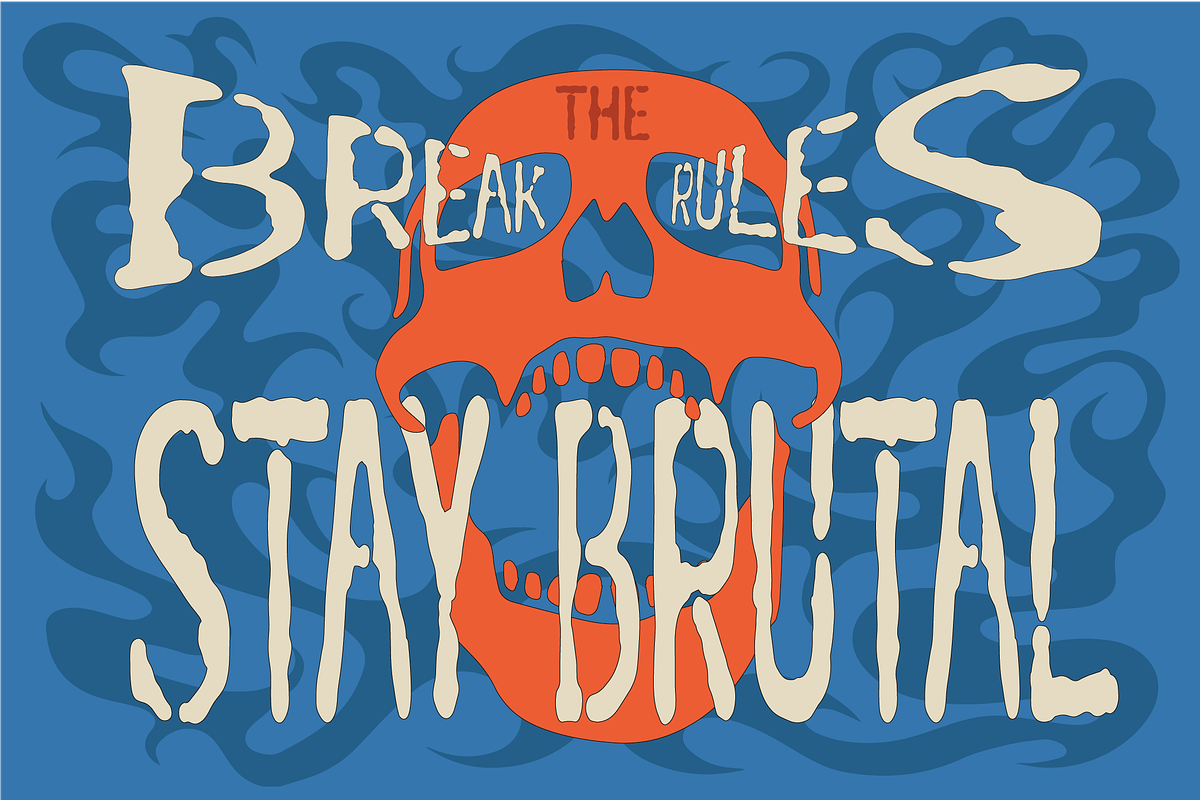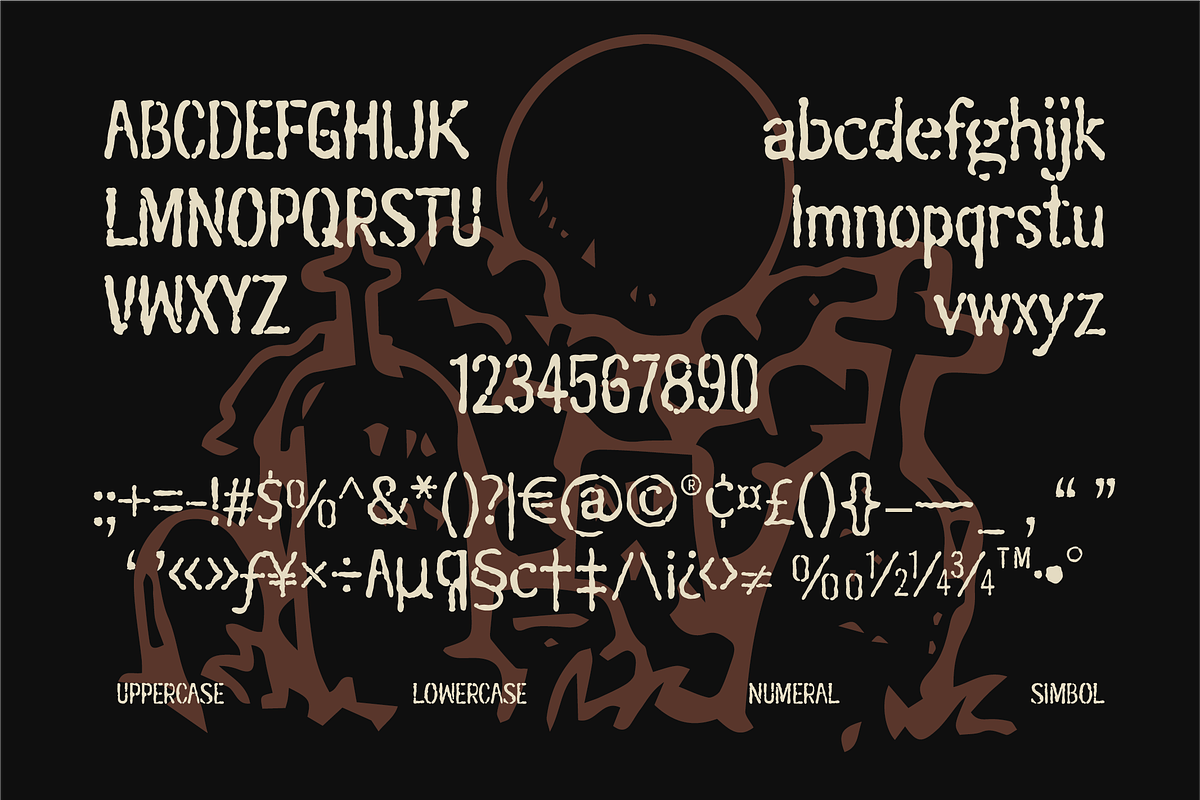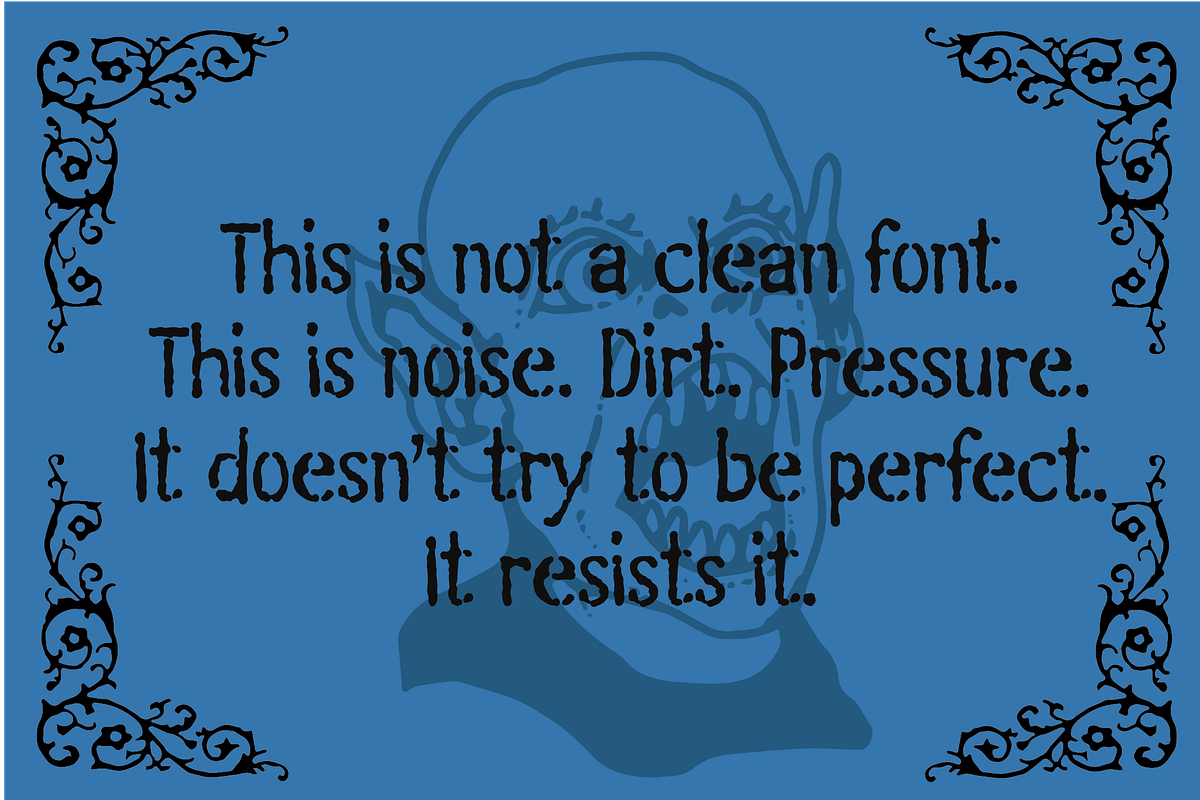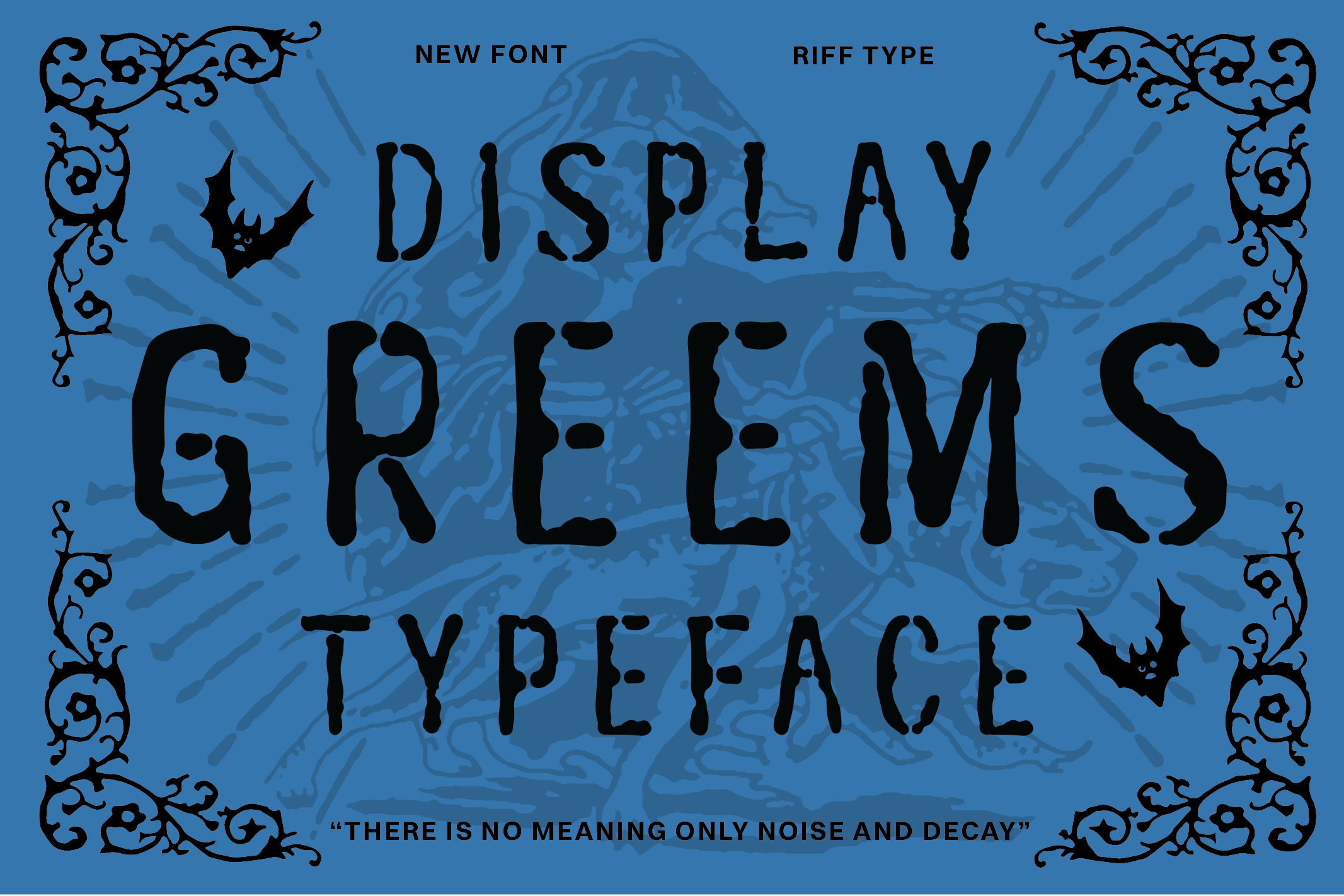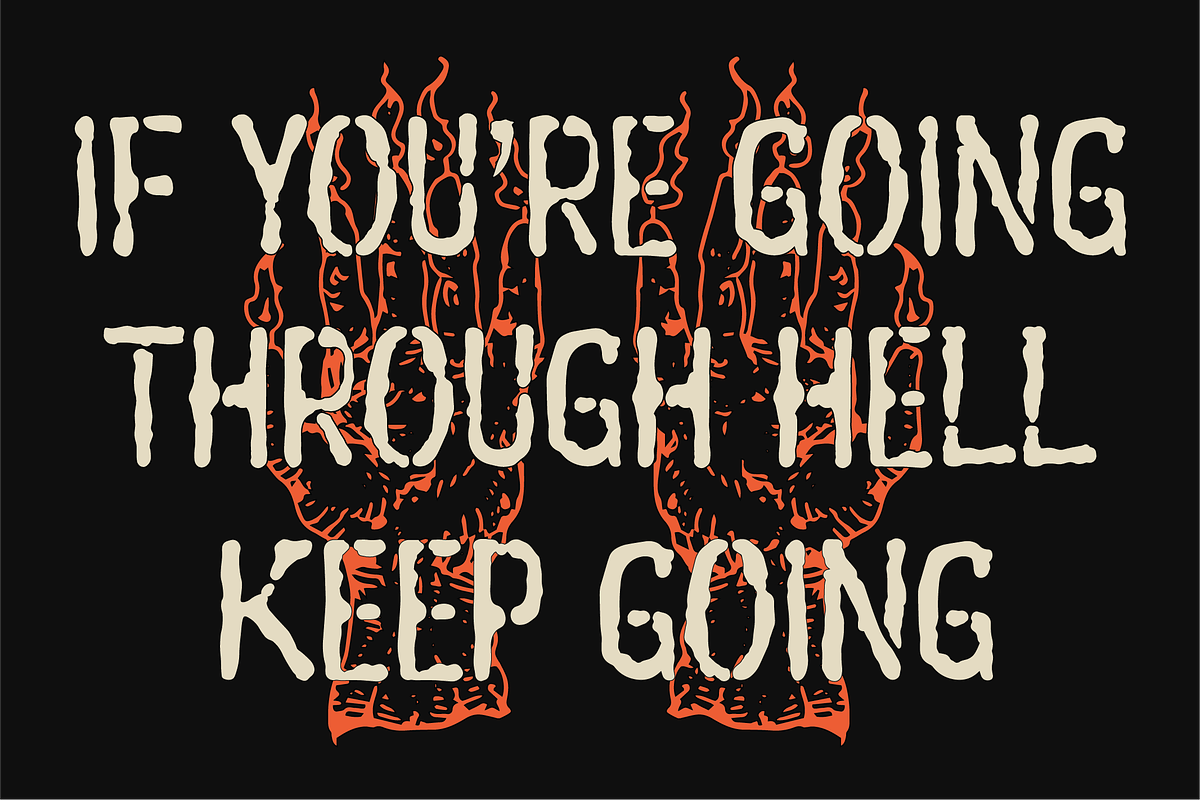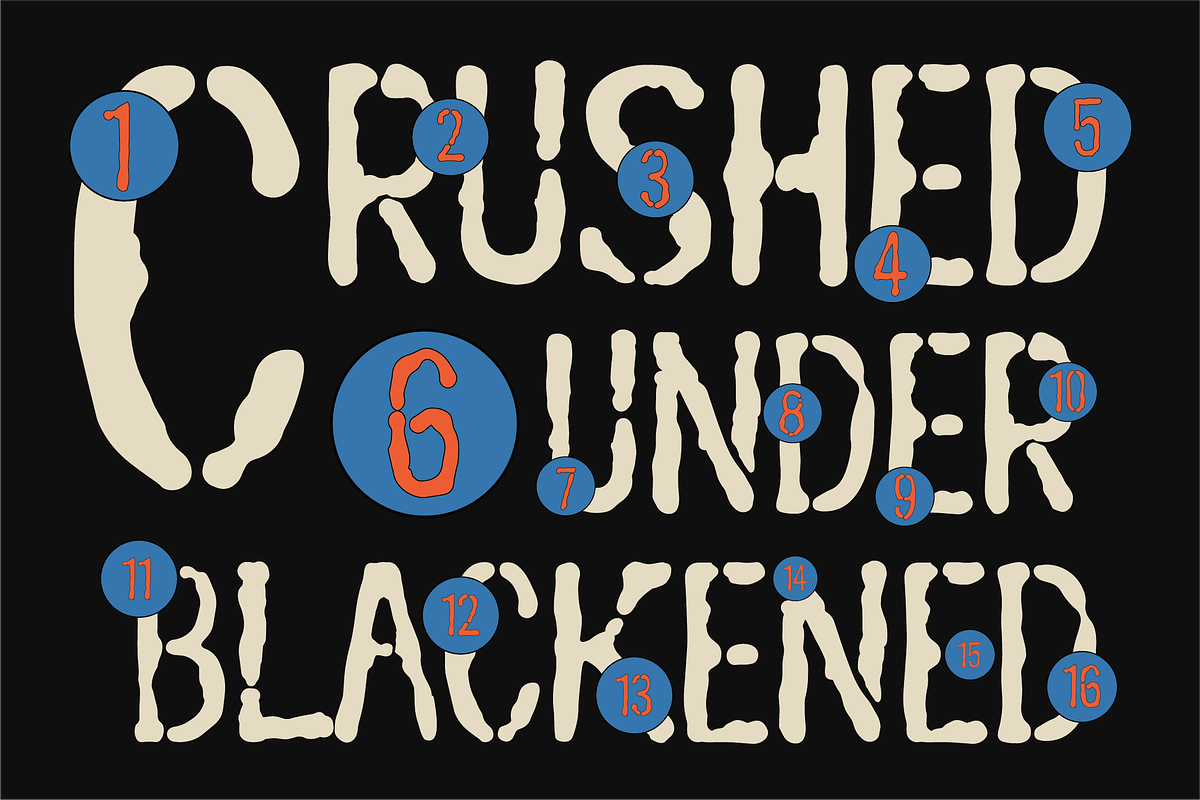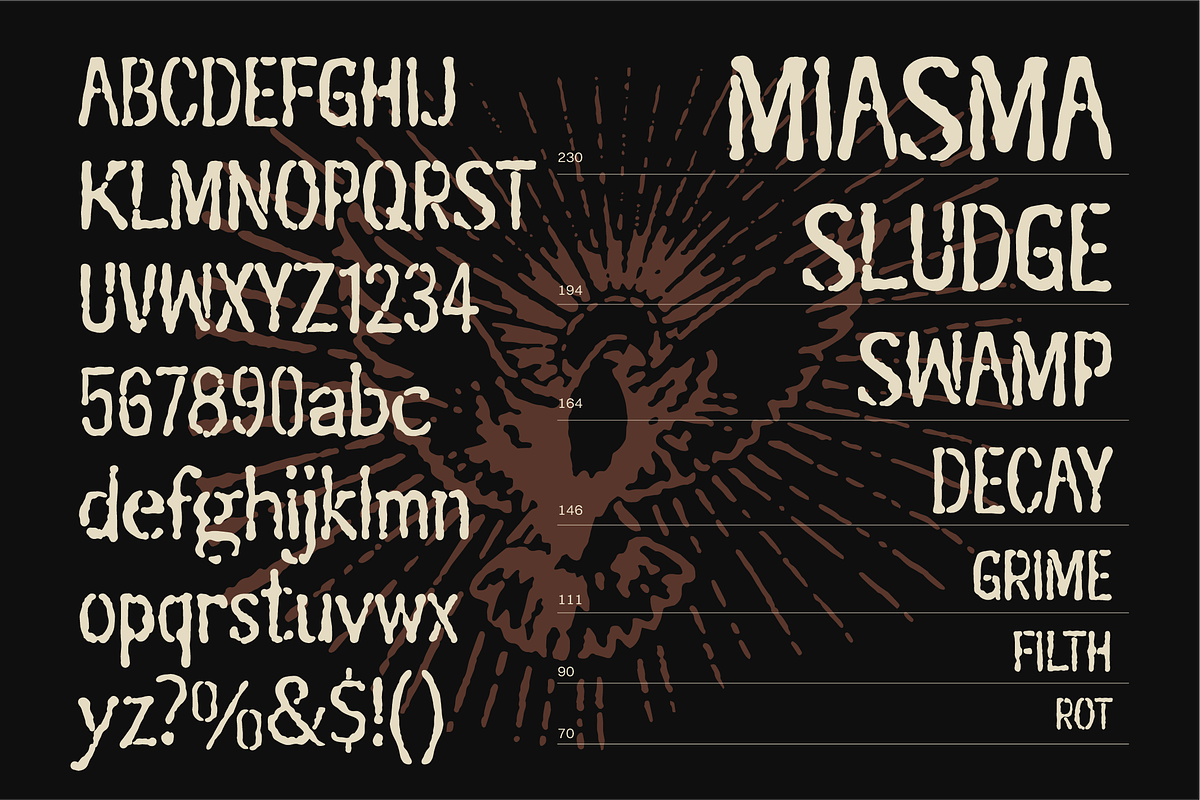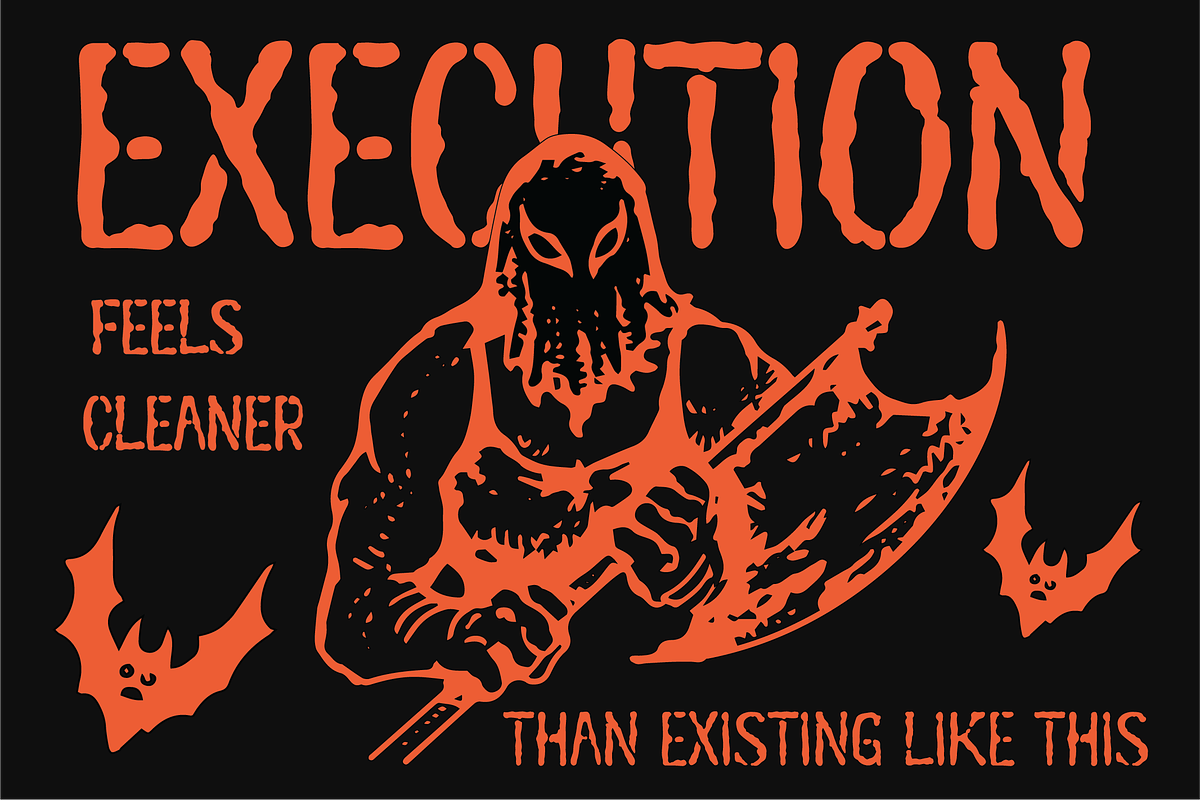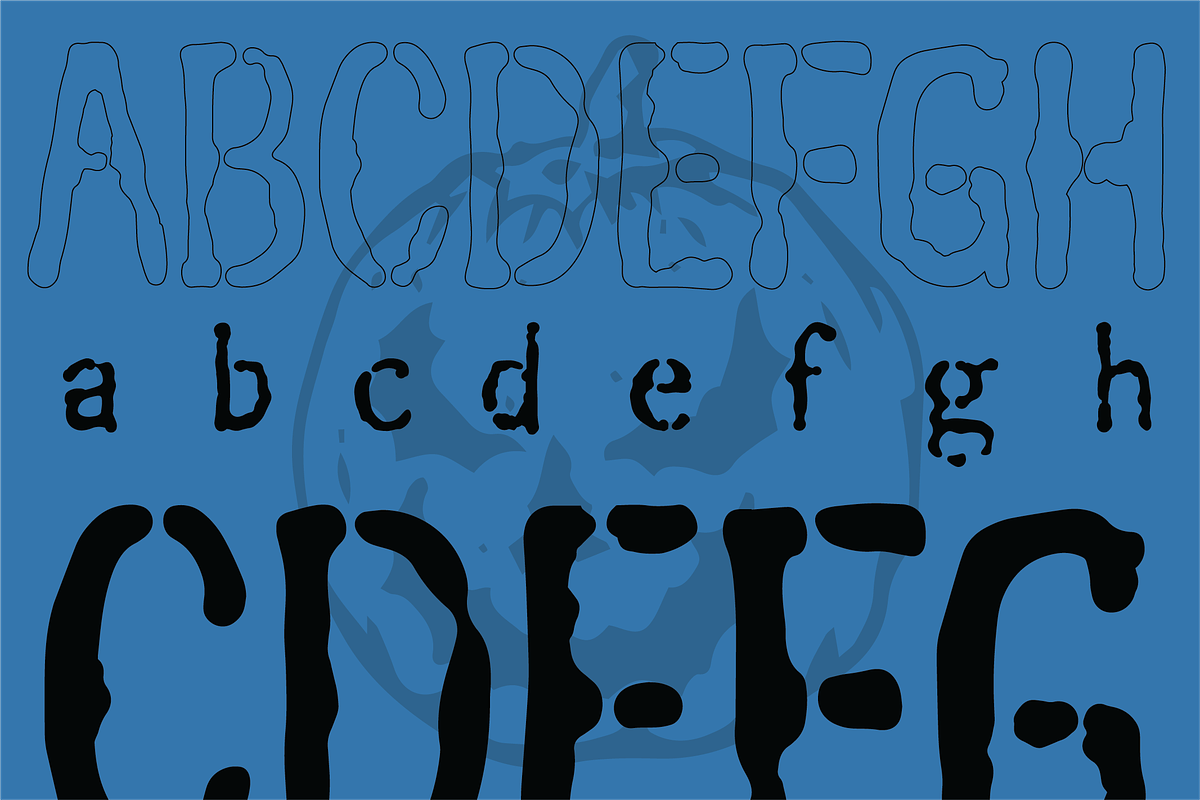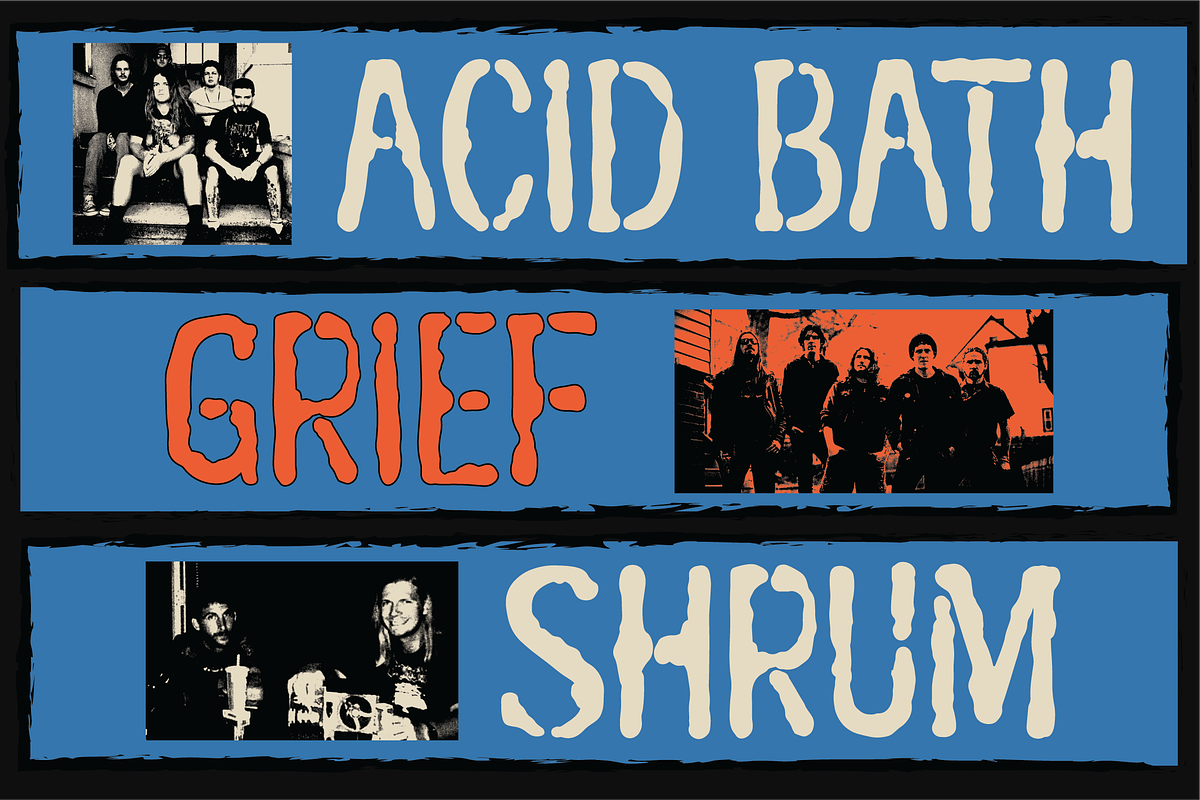
Greems - Doombringer Display Font
**Greems **is a high-friction, distressed display typeface designed for projects that demand maximum sonic weight and underground authority. Inspired by the raw aesthetic of xeroxed gig flyers, heavy metal album sleeves, and industrial printmaking, this font channels an aggressive, worn-in texture that refuses to blend into the background.
Every character carries a unique, eroded silhouette with realistic ink-bleed and noise textures, giving your headlines a tactile, screen-printed feel directly out of a dark basement venue.